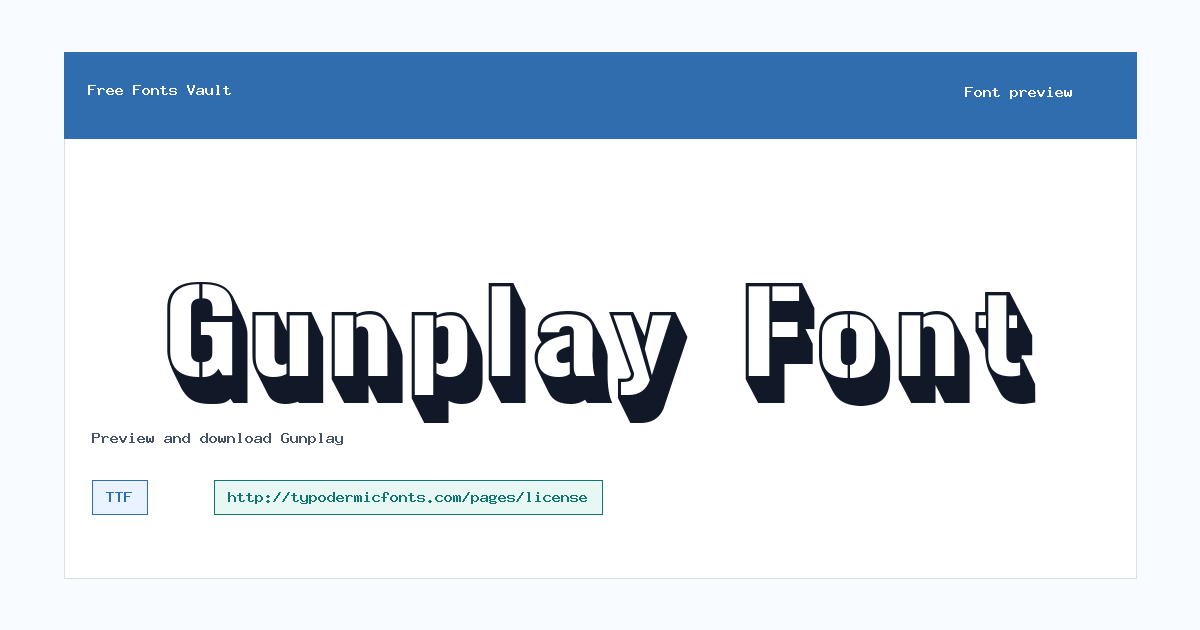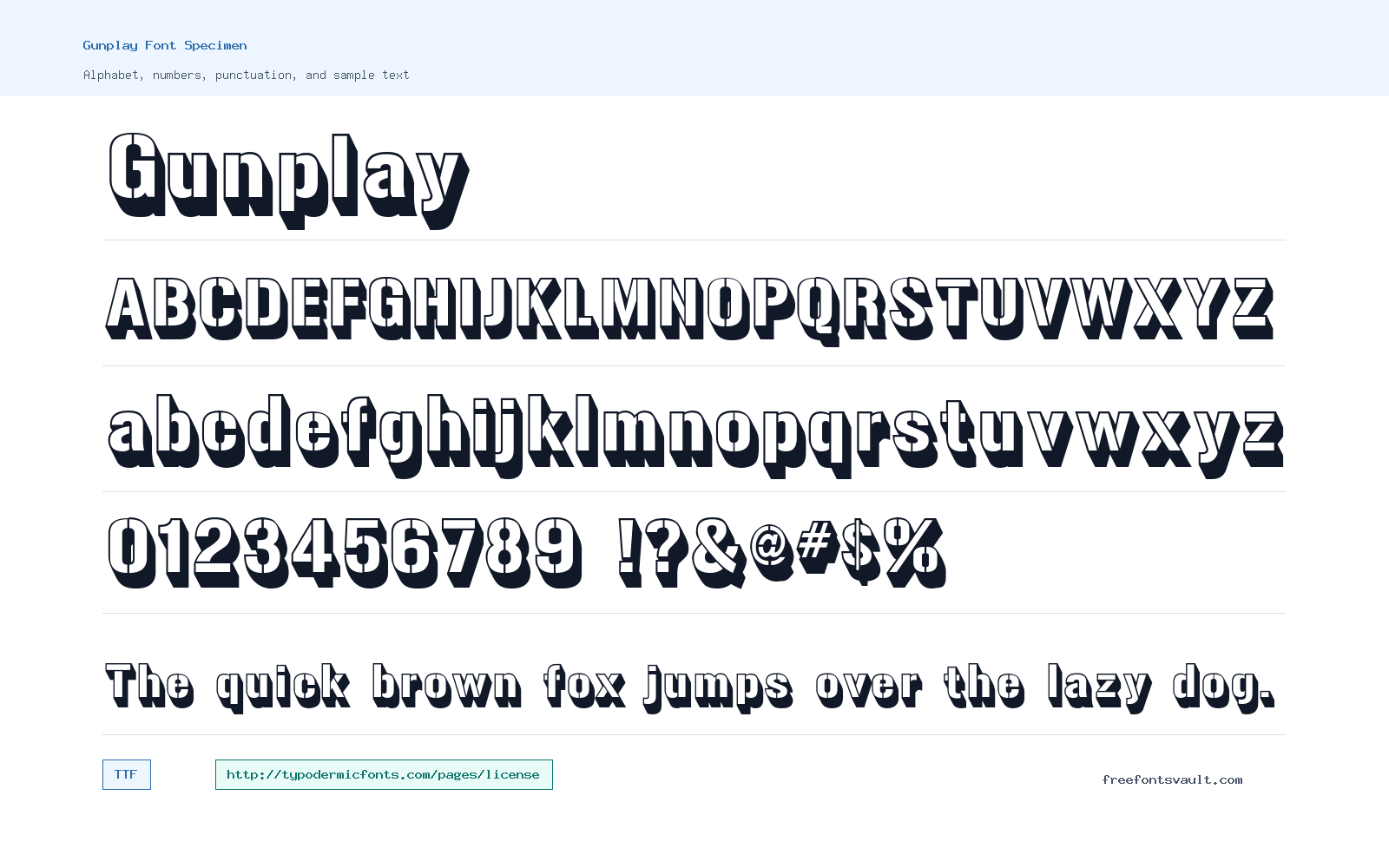
Gunplay
Gunplay is a stencil display font with a tough, cut-out look built for short, forceful text. Use the preview to test names, headings, posters, and logo-style words before downloading.
About Gunplay
Gunplay was designed by Ray Larabie and is associated with Typodermic. Adobe Fonts describes it as a hard-nosed stencil font inspired by the poster for the 1972 film The Getaway. Its letterforms have a rugged, industrial feel, with stencil gaps that give words a sharp screen-printed or action-poster tone.
This is a display face, so it works best when the text is short and the size is large enough for the stencil cuts to stay clear. Try it for titles, badge-style graphics, game or film-inspired headings, apparel mockups, labels, and strong social graphics. For paragraphs, menus, or small captions, pair it with a simpler sans serif so the design stays readable.
Because Gunplay has an intentionally stencil-like construction, it rewards simple compositions. A short title, a badge, or a poster line will usually show the cut-out details better than a dense paragraph. If you are choosing between the regular and 3D styles, preview the same word in both styles and check whether the decorative depth helps the message or makes it harder to read.
• Stencil-style letterforms with a hard-edged display look
• Posters, title graphics, badges, and short headline text
• Game, action, apparel, label, and cover-style design mockups
Gunplay is credited to Ray Larabie and Typodermic in the supplied font data and Adobe Fonts listing.
Use Gunplay for short words and large display settings. Test letters with stencil breaks, tight spacing, and mixed-case text in the preview. If the 3D file is used, keep backgrounds simple so the depth effect does not compete with the message. For cleaner output, test punctuation and numbers too, since stencil display faces can make small details feel heavier than expected.
What kind of font is Gunplay?
Gunplay is a stencil display font with a tough, cut-out look. It is better suited to headlines and graphic text than long reading copy.
Who designed Gunplay?
Gunplay is credited to Ray Larabie, with Typodermic listed as the foundry/source.
What is Gunplay best for?
It works best for short display text such as posters, badges, covers, labels, apparel mockups, and bold title graphics.